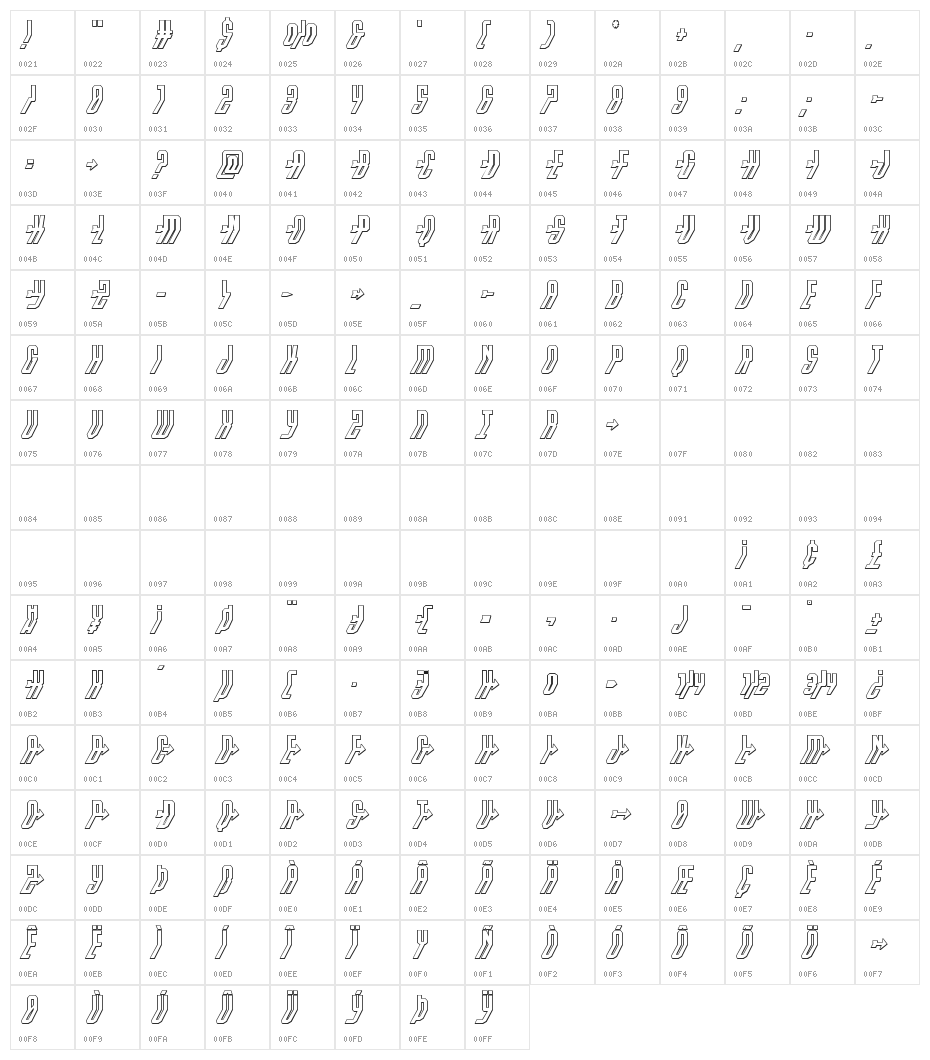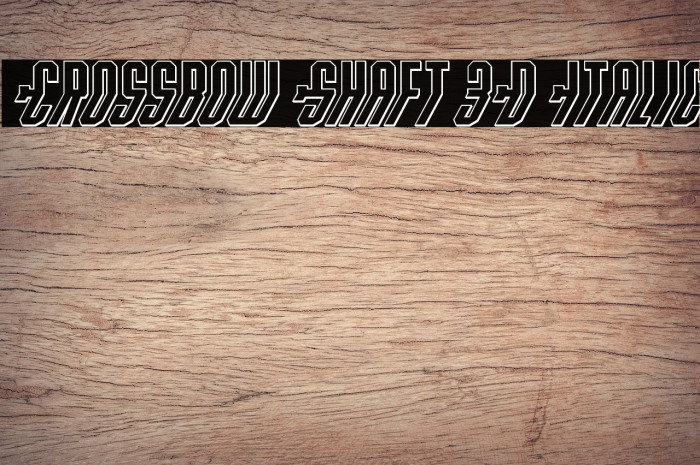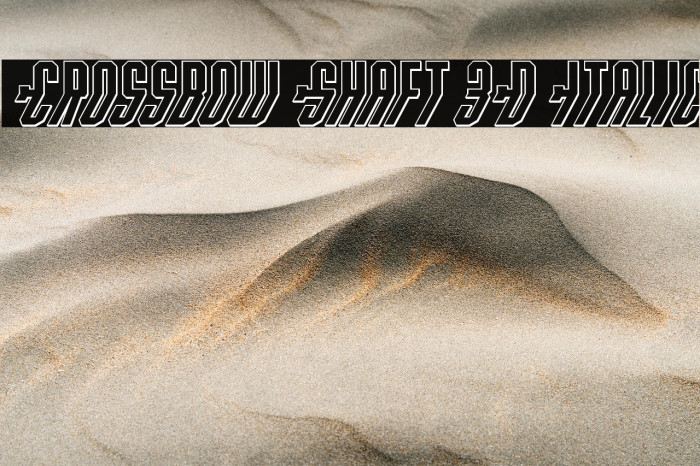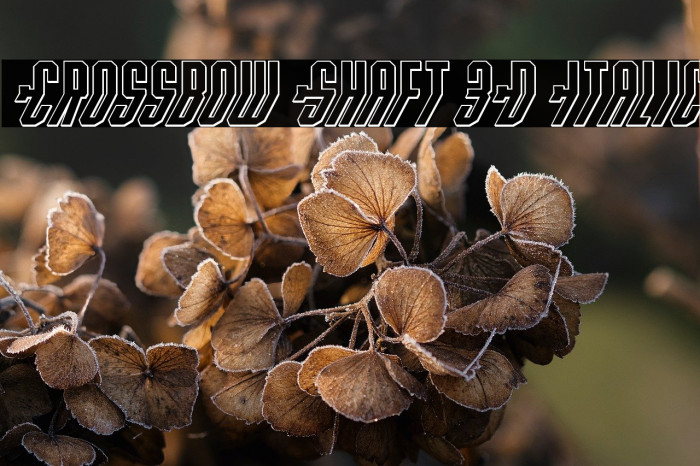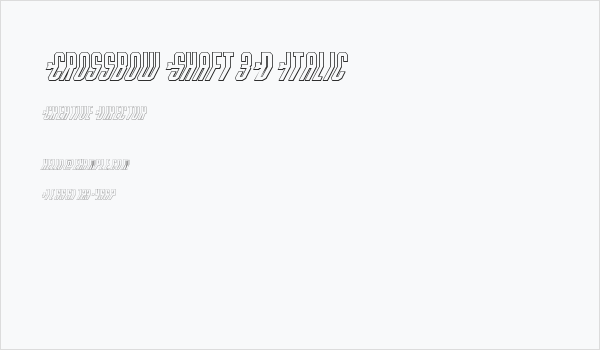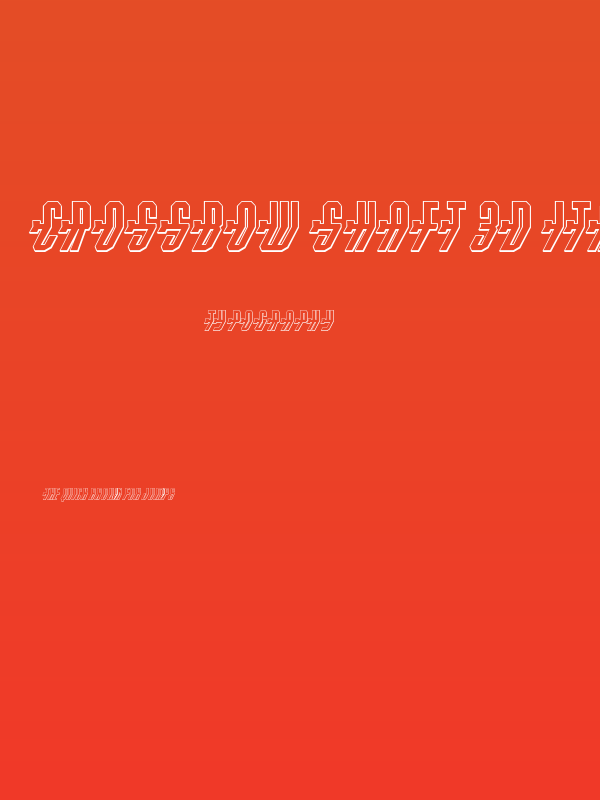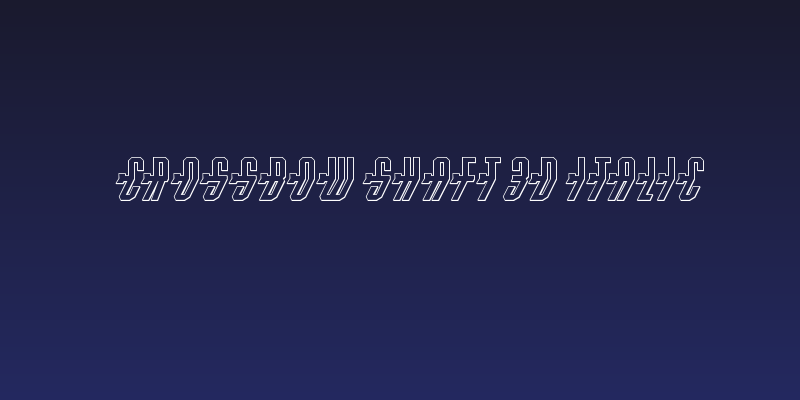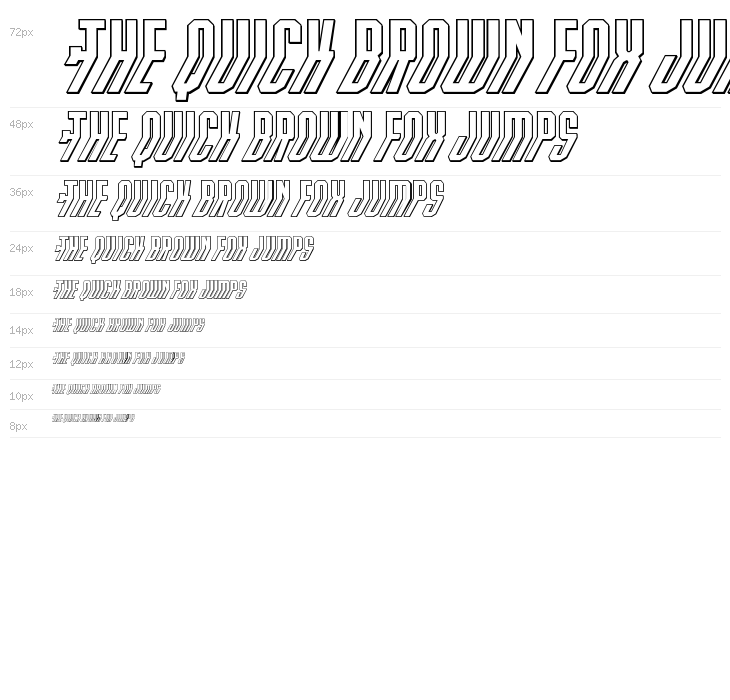
Crossbow Shaft 3D Italic Font
Crossbow Shaft 3D Italic Description
This font features a bold, three-dimensional design with an italic slant, giving it a dynamic and futuristic appearance. The characters are outlined, creating a hollow effect that enhances the 3D look. The uppercase and lowercase letters maintain a consistent style, with sharp angles and a geometric structure. The numbers and special characters follow the same design principles, ensuring uniformity across all glyphs. The font's unique style makes it ideal for eye-catching designs.
| Overall Style | Futuristic, Dynamic |
| Proposed Projects | Ideal for video game titles, movie posters, futuristic branding, and any project requiring a bold, eye-catching typeface. |